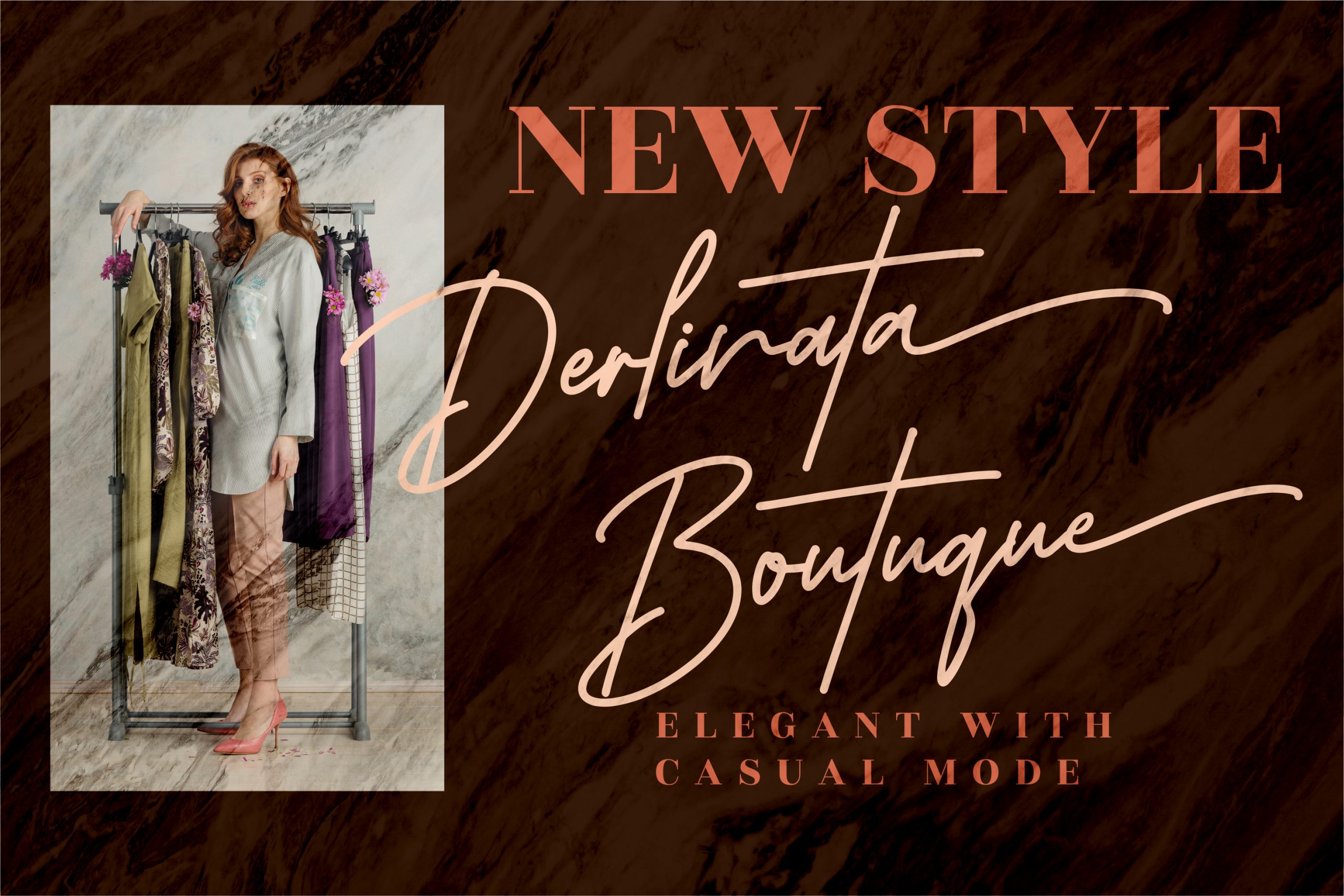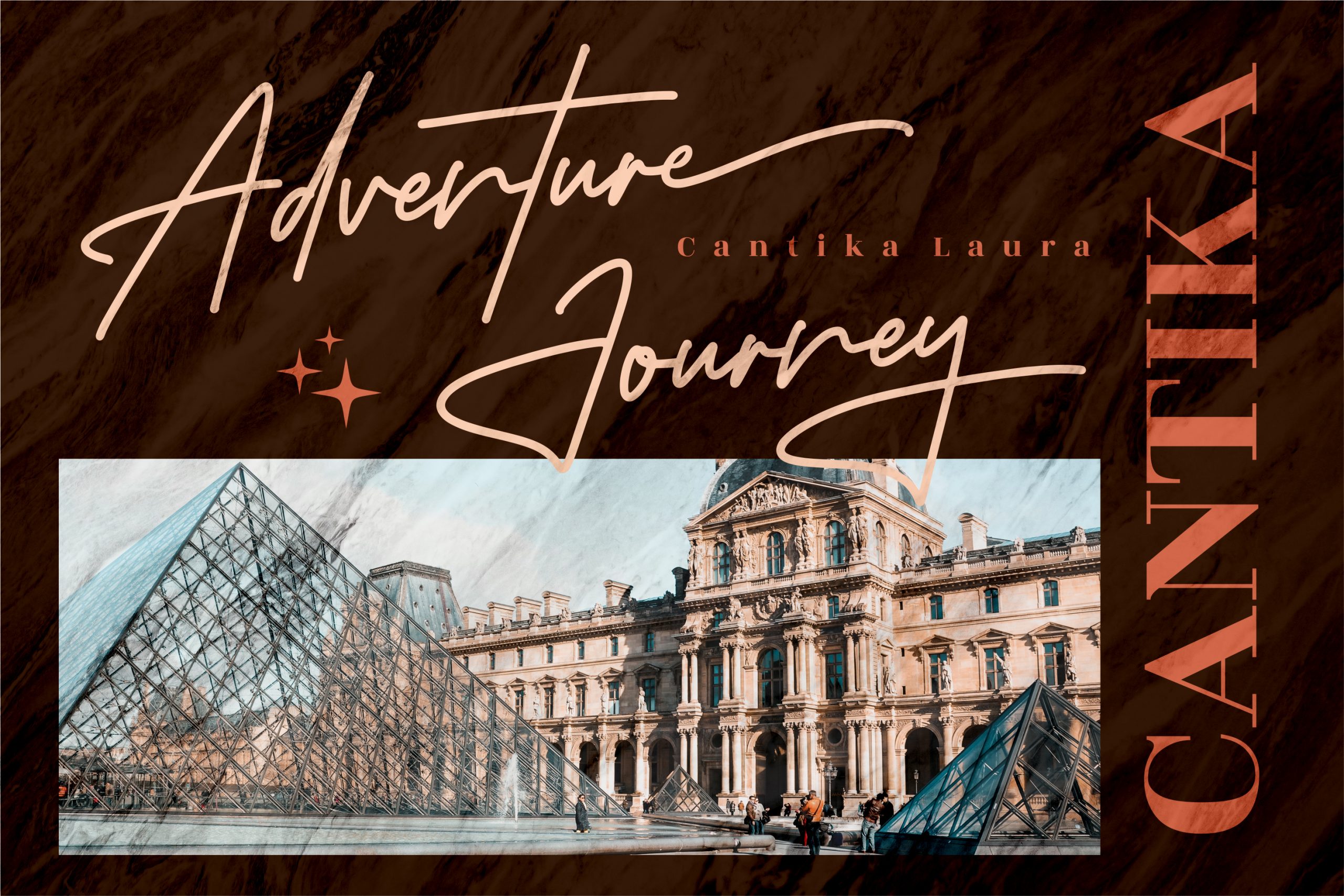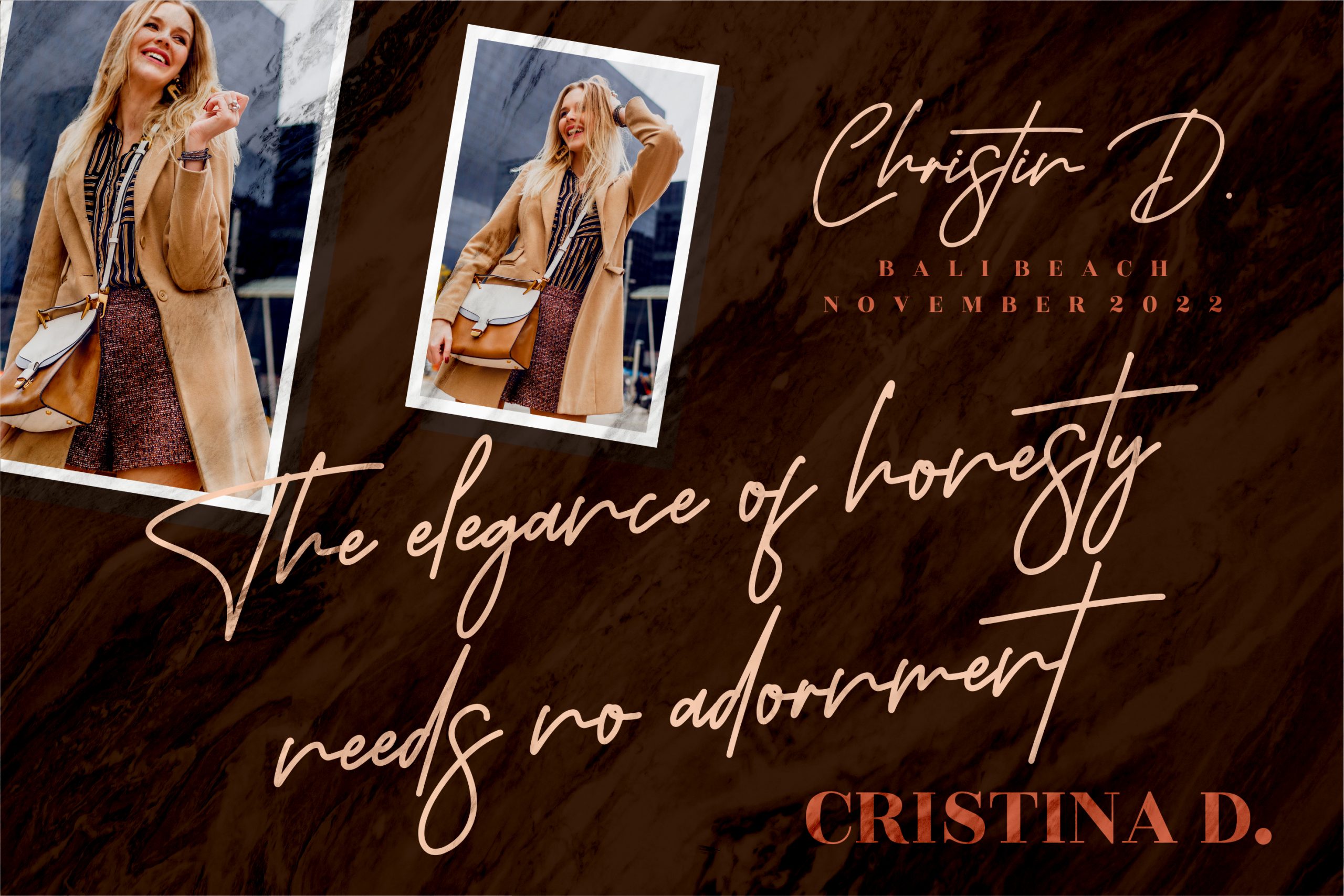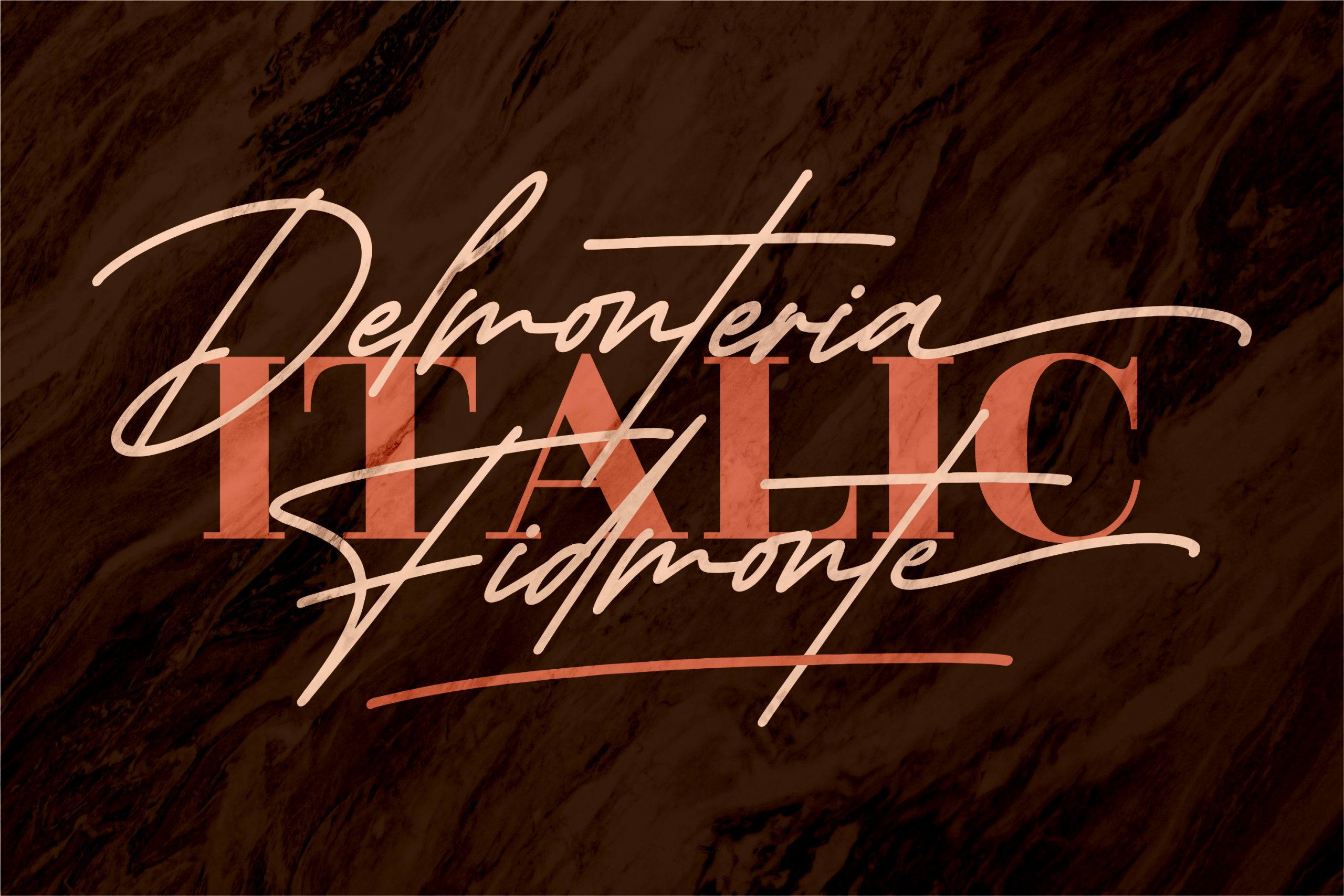
Delmonteria Fidmonte Font
Delmonteria Fidmonte Font – Monoline Signature Font, from Perspectype Studio, is a premium signature font, suitable for any projects such as: logos, branding projects, homeware designs, product packaging, mugs, quotes, posters, shopping bags, t-shirts, book covers, name card, invitation cards, greeting cards, label, photography, watermark, special events, and all your other luxury projects that need a premium signature taste.